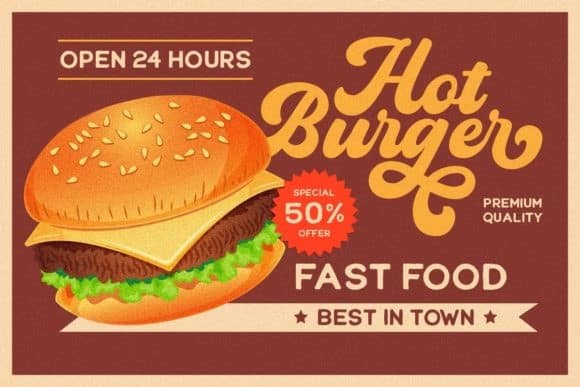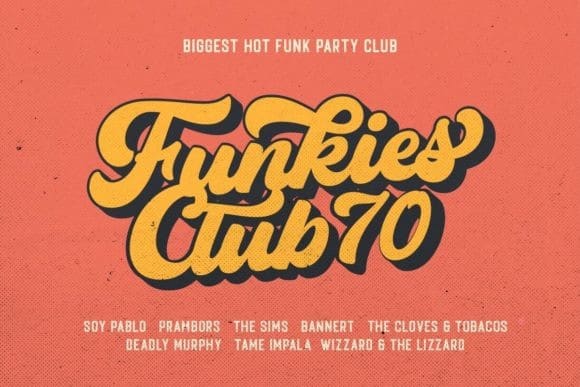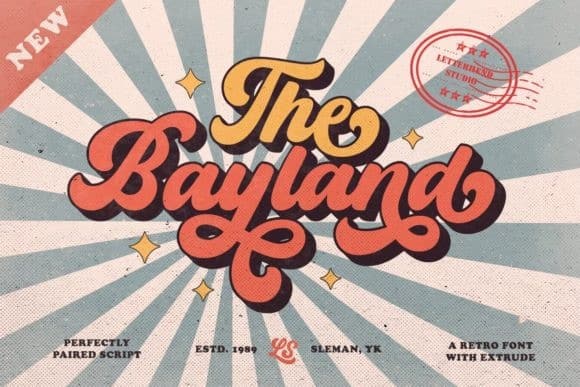
Bayland Script Font
Bayland Script Font is a vintage font distinctive looking bottom heavy display script inspired by hand lettering, This typeface is designed using elements of typography. Made from font designer named letterhend. The Bayland feels playfully nostalgic and delivers an incredible vintage aesthetic. Use this display font to add that special retro touch to any design idea you can think of!